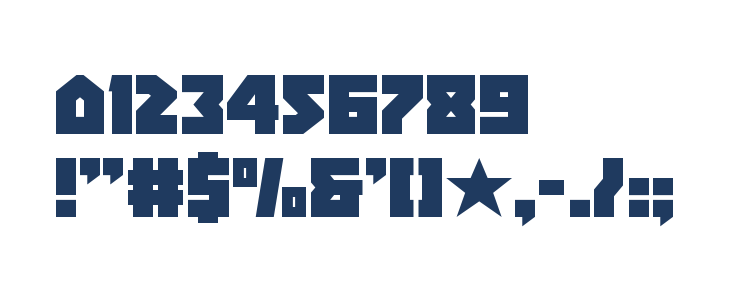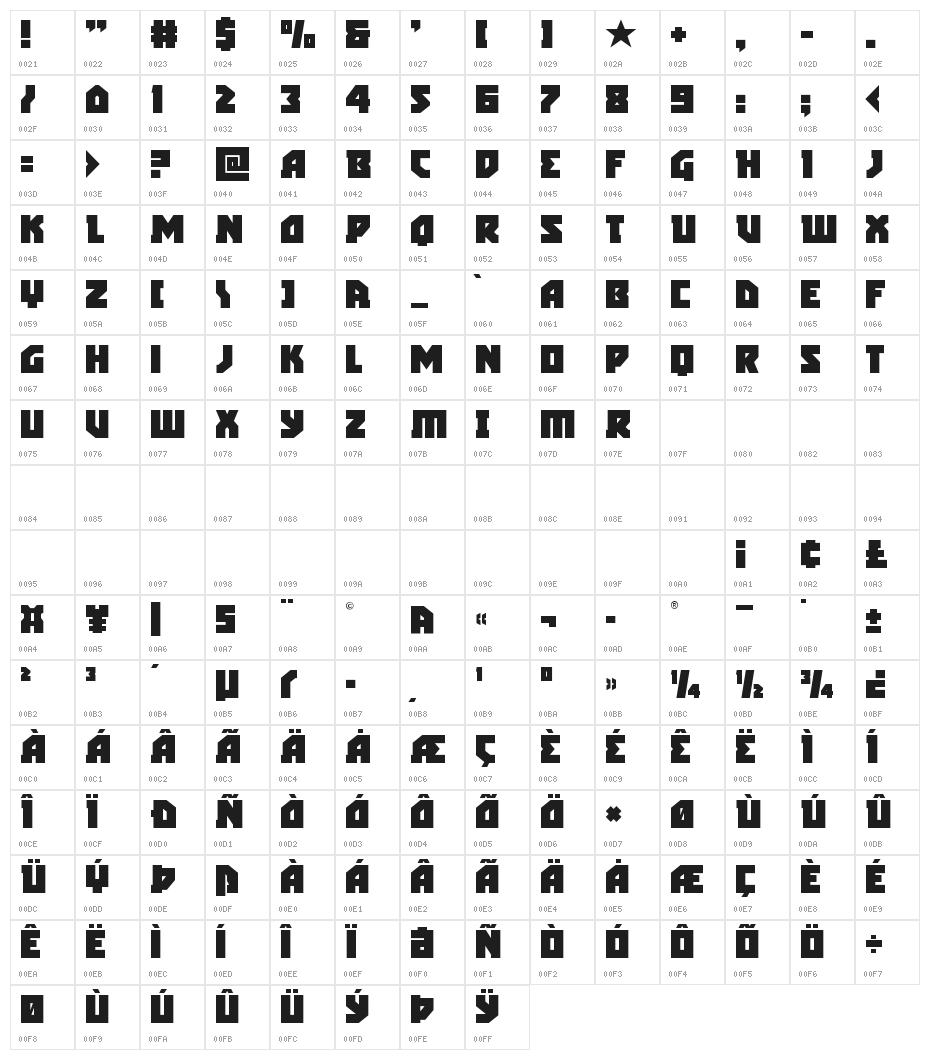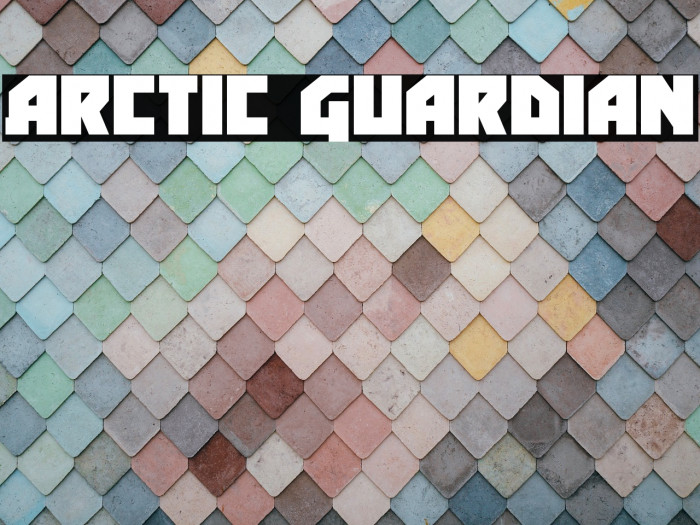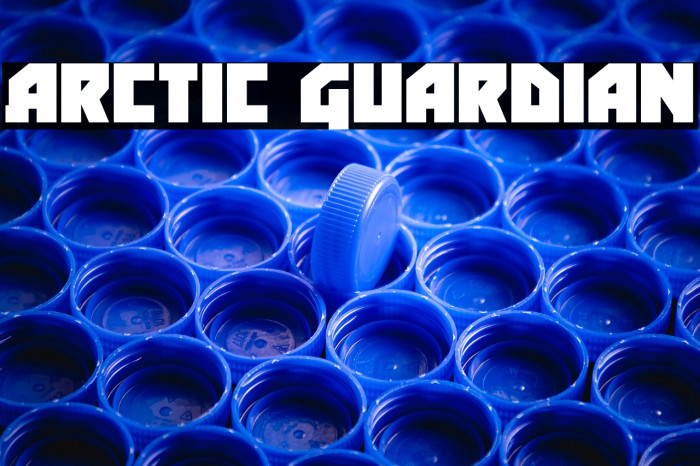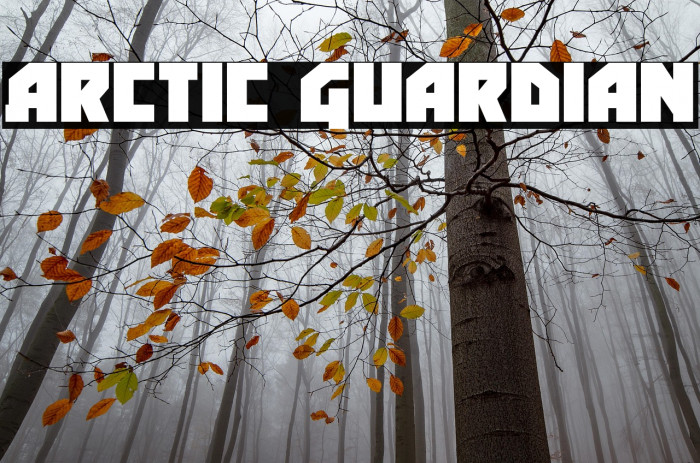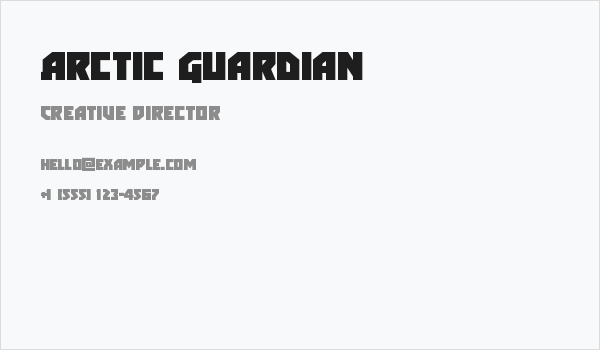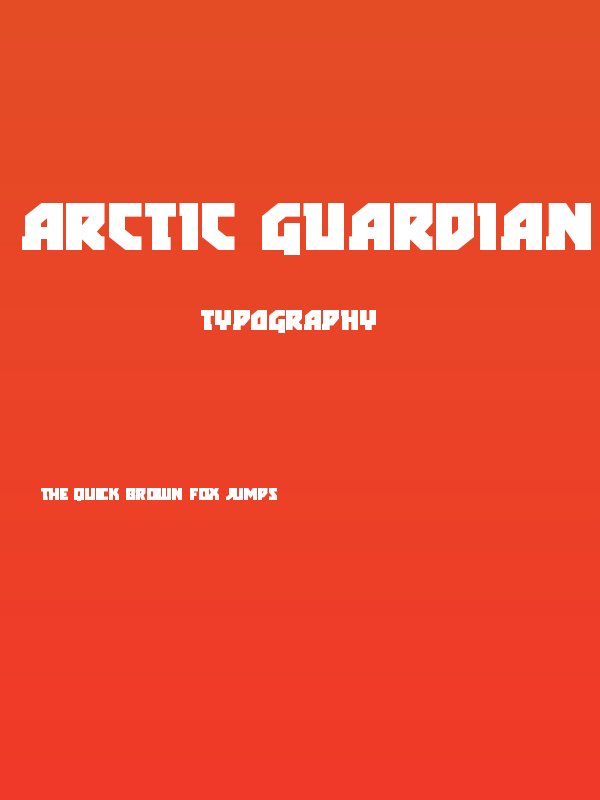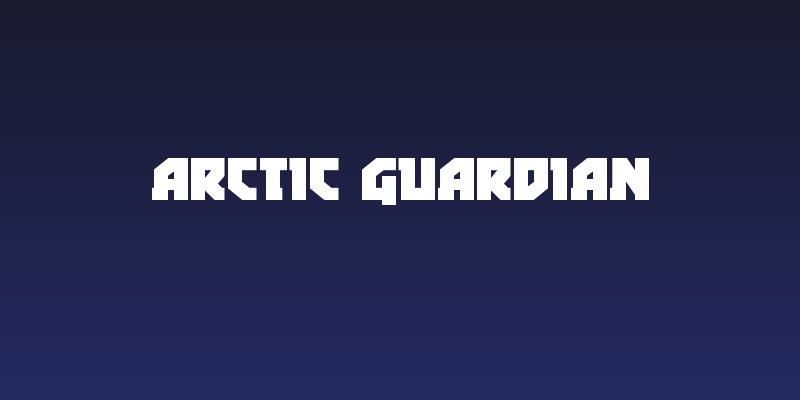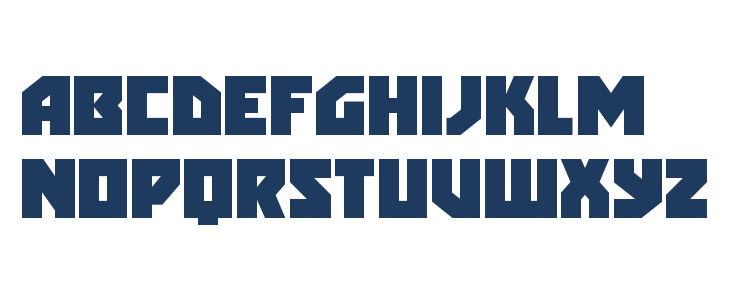
Arctic Guardian Font
Arctic Guardian Description
This font features a bold, geometric design with sharp angles and a blocky appearance. The characters are uniformly thick, giving a strong and impactful presence. Each letter and number is crafted with precision, showcasing a futuristic and industrial aesthetic. The uppercase and lowercase letters maintain a consistent style, while the numerals and special characters complement the overall design. This typeface is ideal for projects that require a modern and assertive look, making it suitable for headlines, posters, and branding materials. The font's unique style ensures it stands out, capturing attention with its distinctive form.
| Proposed Projects | Ideal for headlines, posters, branding, and any project needing a modern, assertive look. |